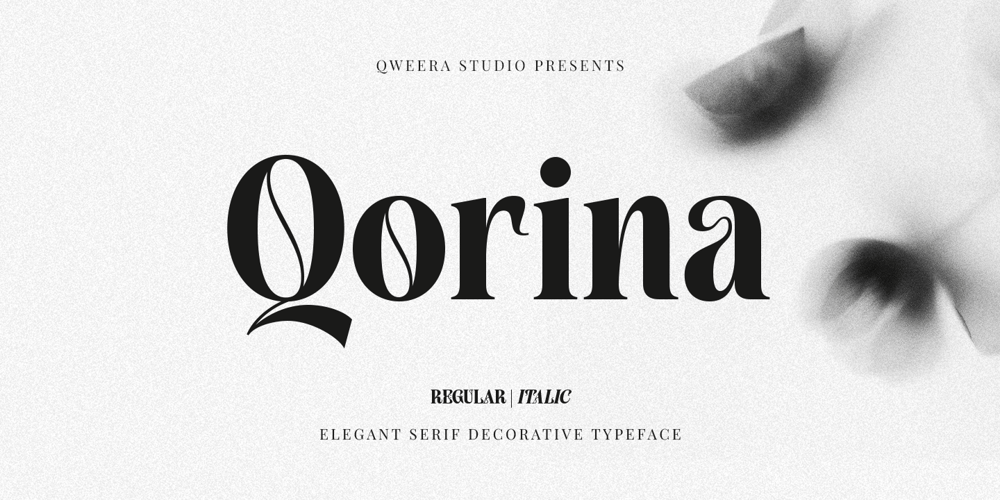
Qorina Font Family was designed by Idhham Cholid Rikzano Yahya and published by Qweera Studio. Qorina contains 2 styles and family package options. Introducing Qorina, an elegant Display Serif font that exudes luxury and sophistication. This exquisite typeface is filled with a variety of attractive alternates and ligatures, making it perfect for high-end branding, fashion editorials, and upscale packaging. Prestige Edition is available in both regular and italic versions, offering versatility for your creative projects. Elevate your designs with the timeless elegance of Qorina.Here’s what you get: Regular & Italic All Multilingual symbol Opentype features ( ligature, alternate ) Accessible in the Adobe Illustrator, Adobe Photoshop, Adobe InDesign, even work on Microsoft Word. PUA Encoded Characters – Fully accessible without additional design software. Multilingual character supports : (Afrikaans, Albanian, Catalan, Croatian, Czech, Danish, Dutch, English, Estonian, Finnish, French, German, Hungarian, Icelandic, Italian, Lithuanian, Maltese, Norwegian, Polish, Portuguese, Slovenian, Spanish, Swedish, Turkish, Zulu)Follow my shop for upcoming updates, and for more of my work.Thank you!Qweera Studio